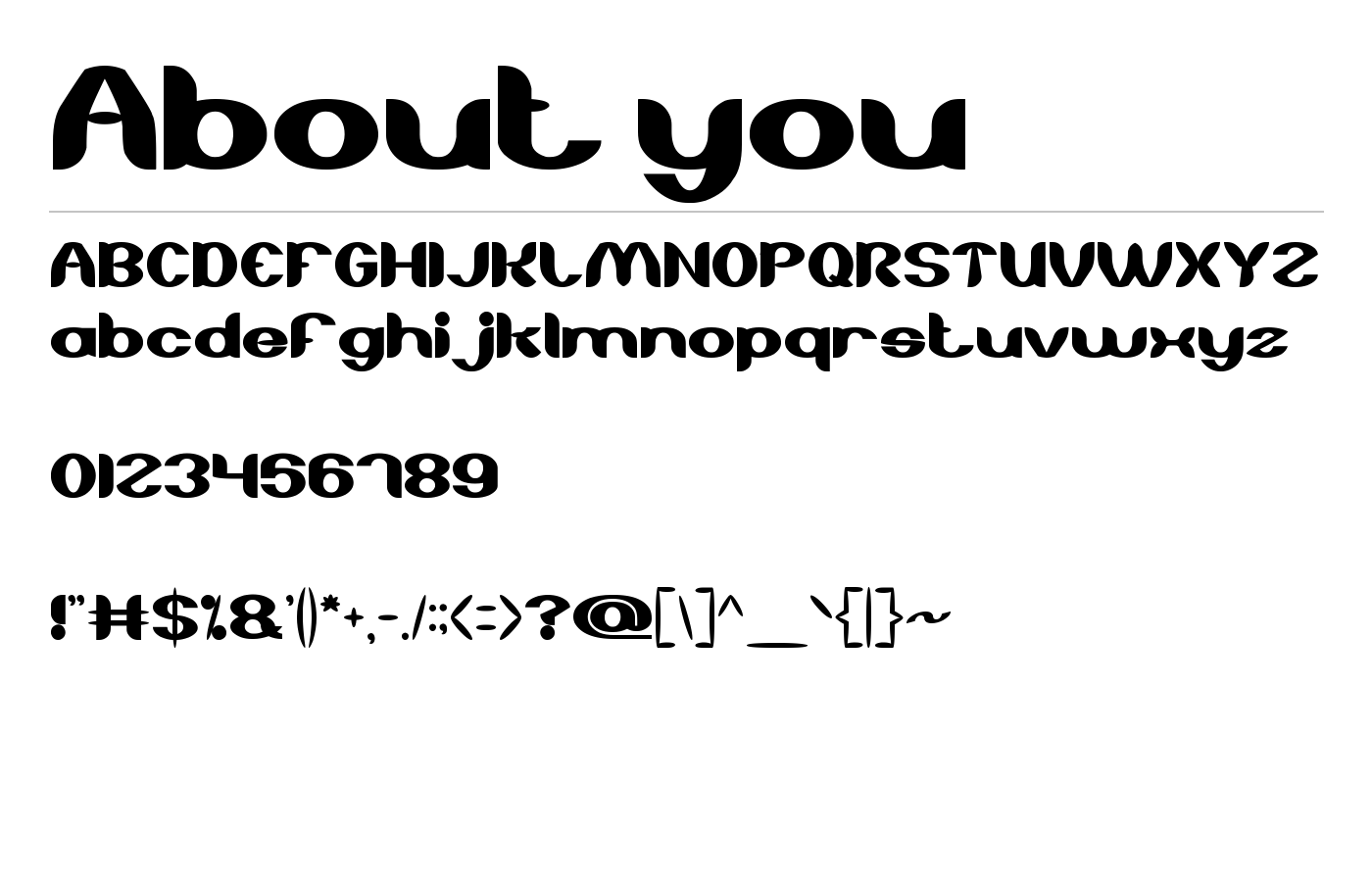
About you Font is a bold, playful sans serif with a unique retro flair characterized by its thick, rounded strokes and distinctive, almost sculptural letterforms. Its high x-height and tightly spaced characters create a compact, eye-catching style that works well for logos, headlines, and branding that seek a fun yet confident personality. This font's strong presence and quirky shapes make it ideal for creative projects that want to stand out and convey a lively, modern vibe.
About you Font
About About you Font